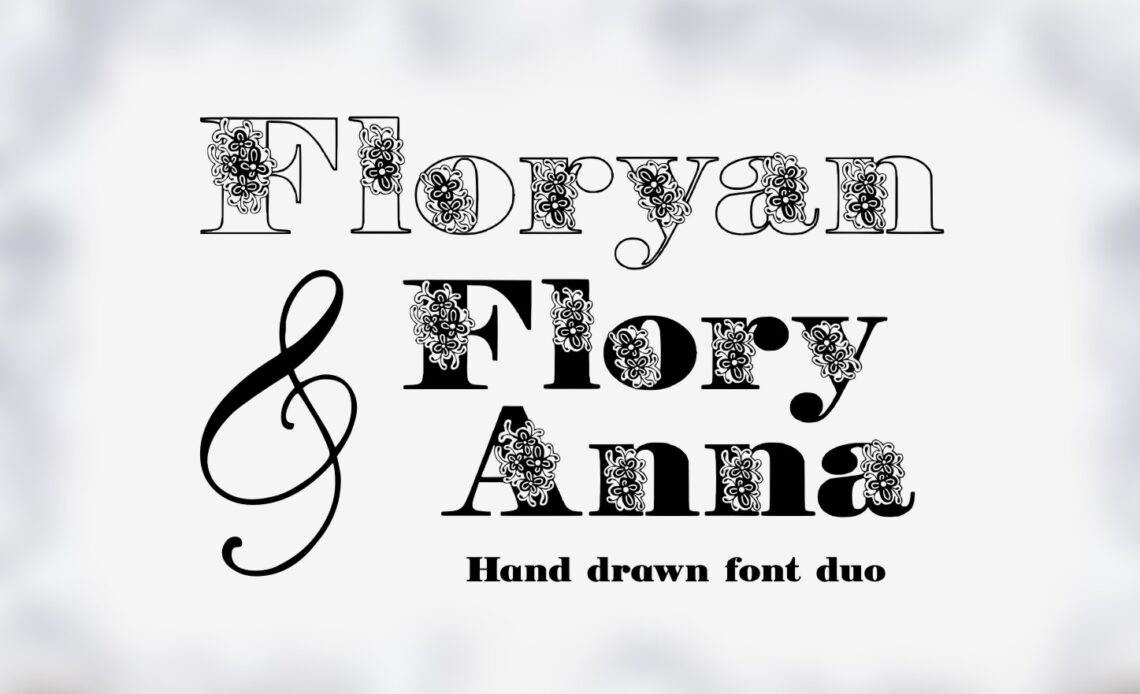
Floryan & FloryAnna Font
Dive into the realm of captivating typography with the enchanting Floryan & FloryAnna font duo, meticulously crafted by Digital Typeface Studio. This exquisite pair exudes elegance and versatility, promising to transform your designs into works of art.
Embrace Floryan's delicate grace for ethereal projects, while FloryAnna's solid presence adds a touch of sophistication to any endeavor. This dynamic duo empowers you to craft stunning cards, elevate wedding invitations, embolden headlines, and unleash your creativity in countless ways.
From charming signage and logos to eye-catching posters and flyers, Floryan & FloryAnna lend a touch of magic to every visual expression. Their versatility extends to t-shirts, where their bold strokes and flowing lines ignite imaginations.
Indulge in the limitless possibilities of Floryan & FloryAnna and let your design aspirations soar. Embrace the beauty of hand-drawn typography and experience the joy of crafting truly captivating creations.